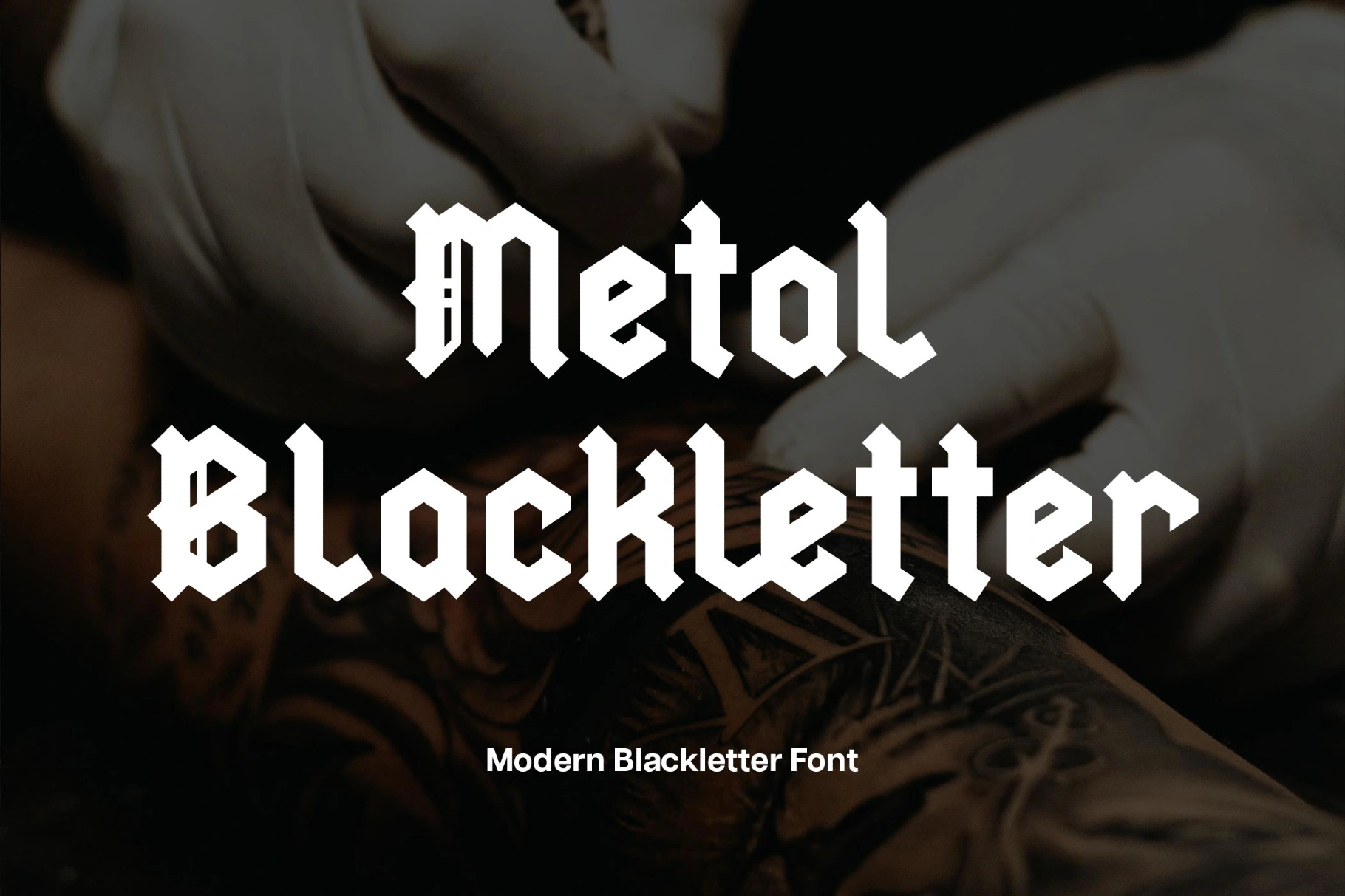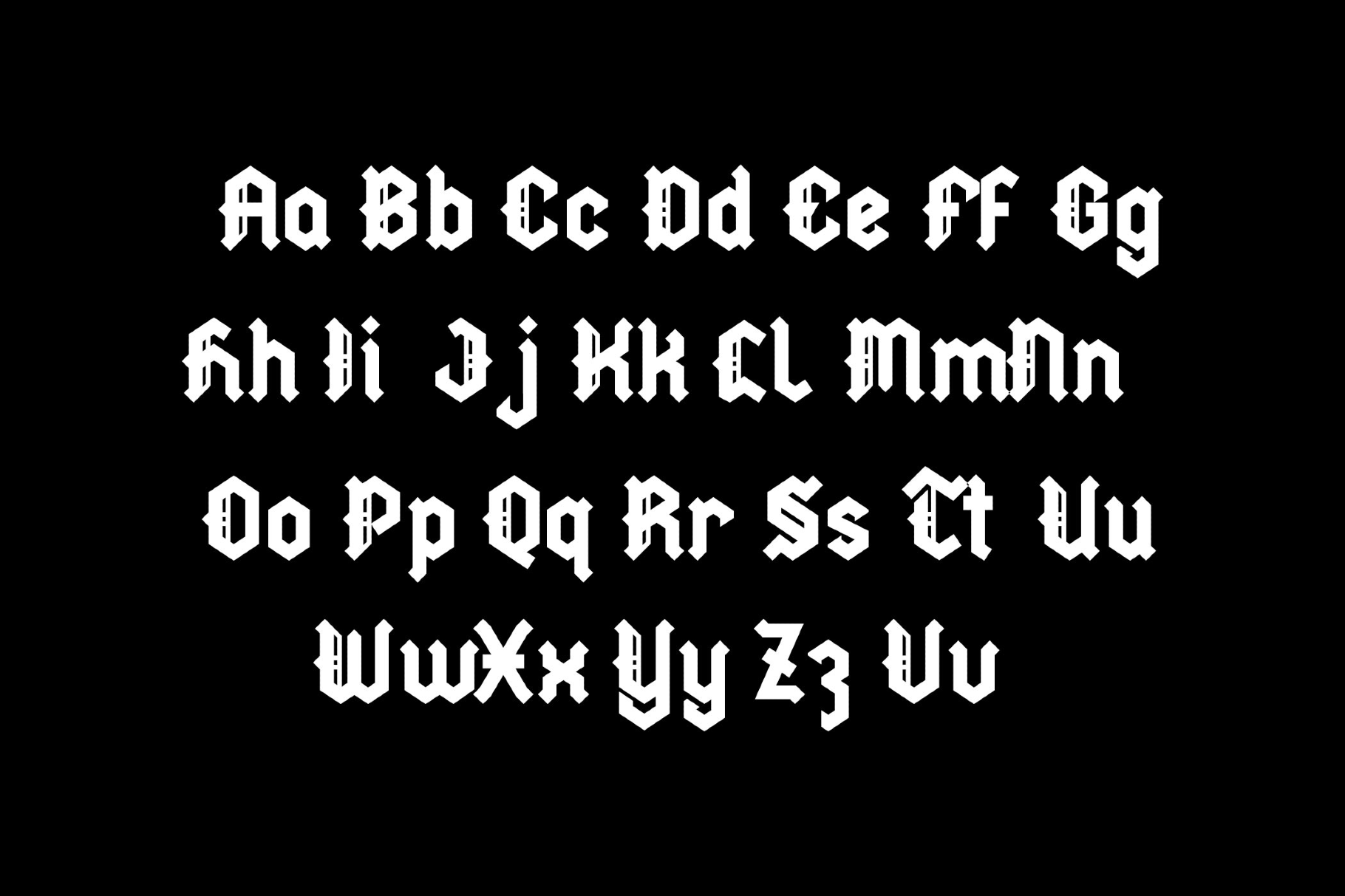
Metal Blackletter Font
The typeface distills heavy-metal poster attitude into a chiseled gothic display. It's delivers a machined snap with compact rhythm thanks to faceted strokes, diamond tips, and squared counters.
Metal Blackletter is suited for band logos and tour merch, festival posters, sword-and-sorcery book jackets, retro arcade or RPG titles, biker patches and club flyers, energy-drink cans, tattoo studio signage, esports wordmarks, horror-film credits, and collectible card headers.